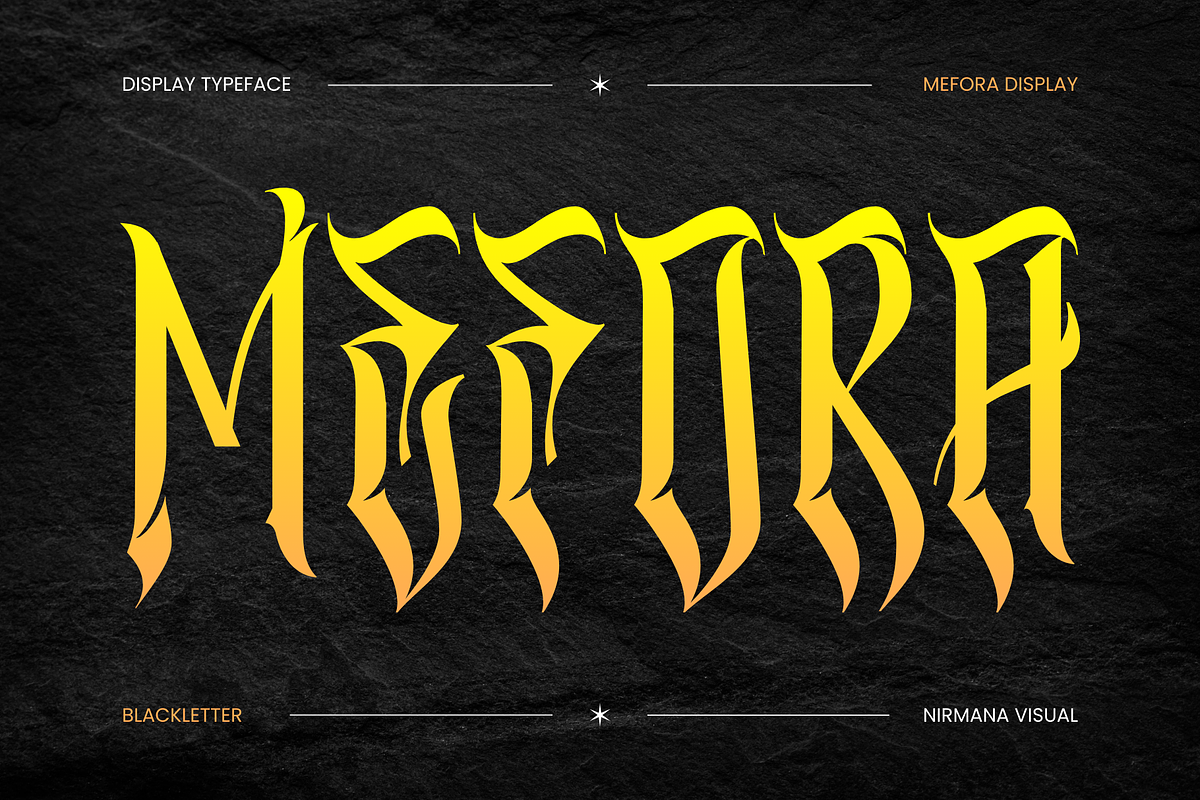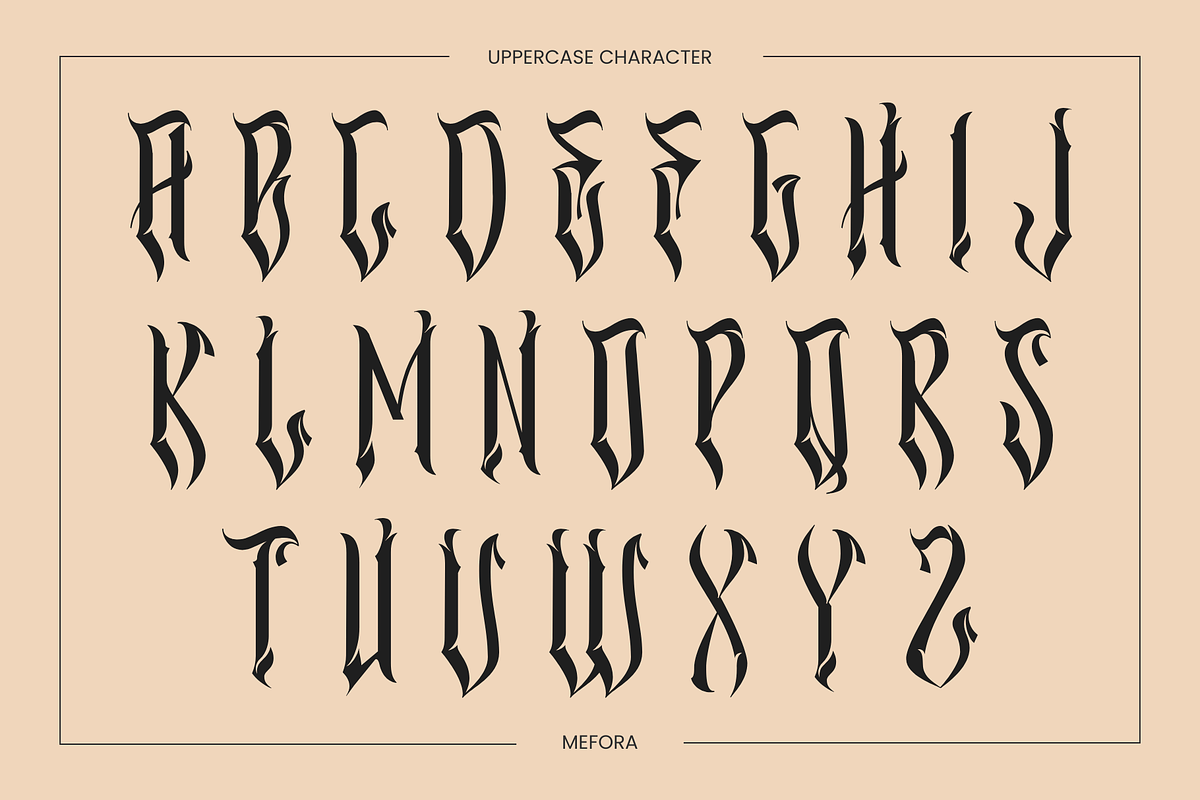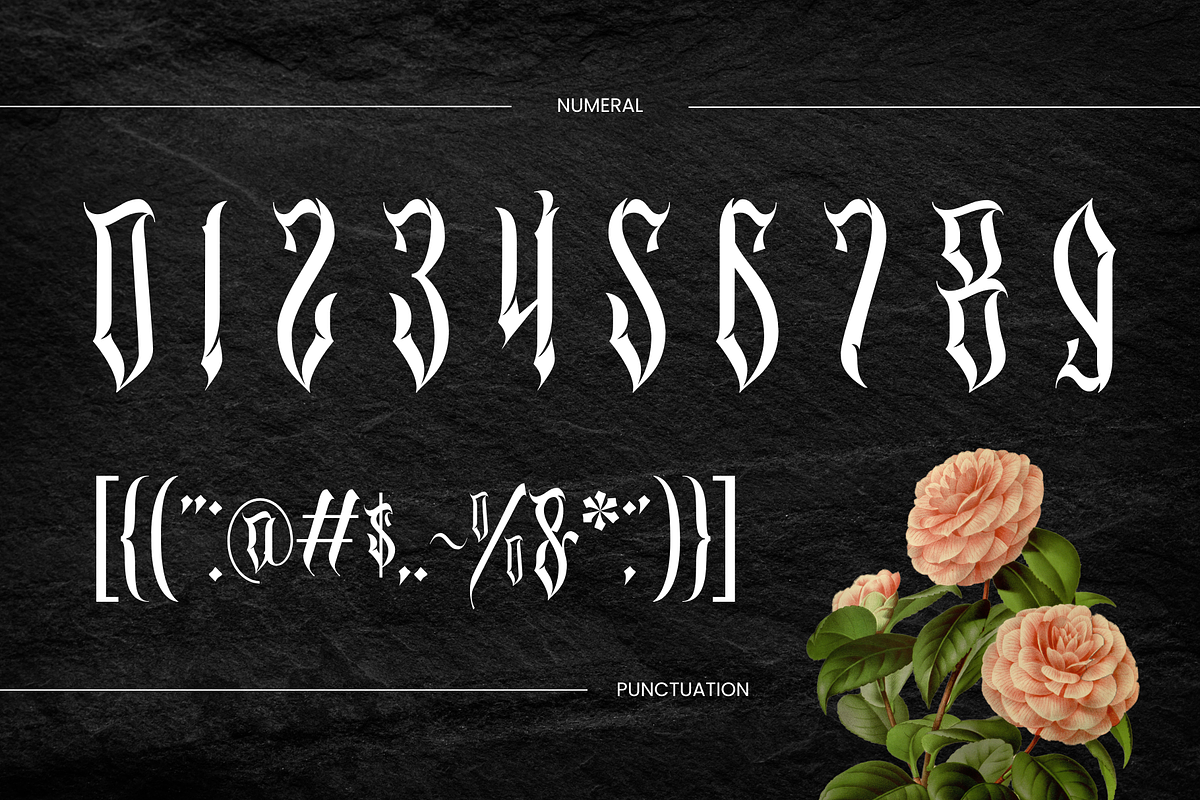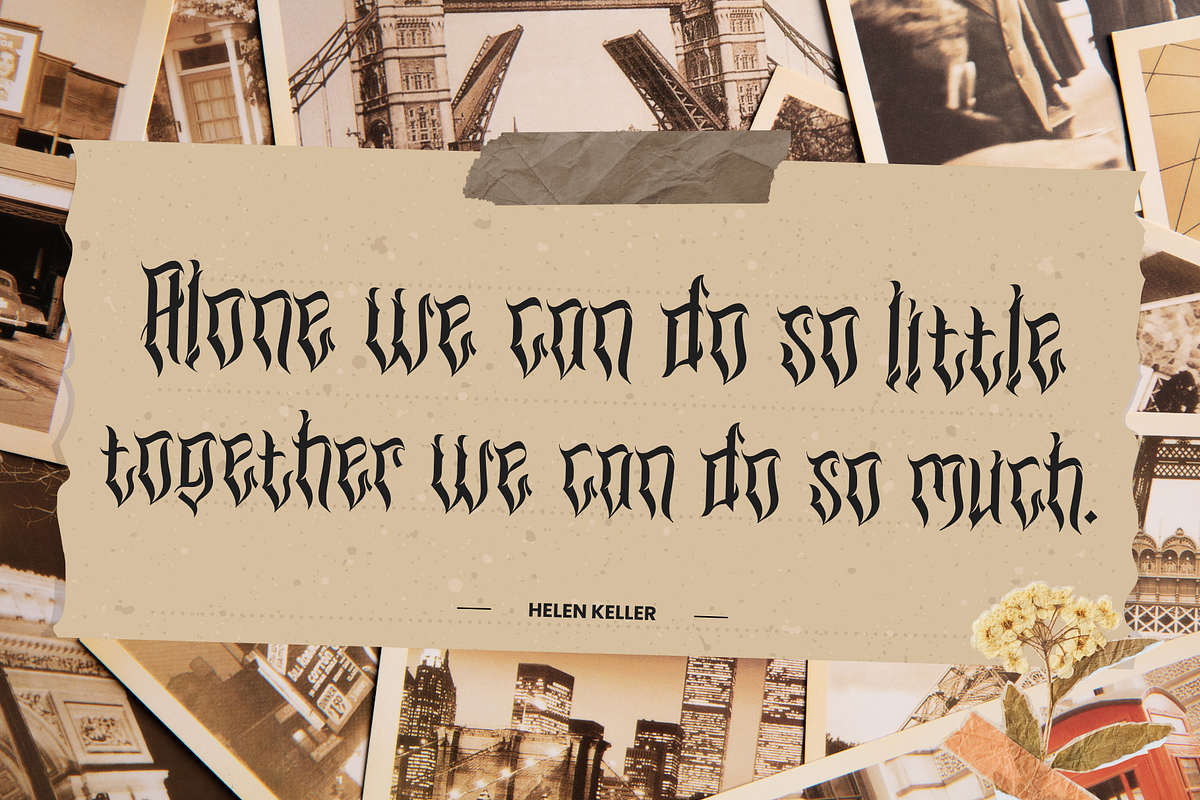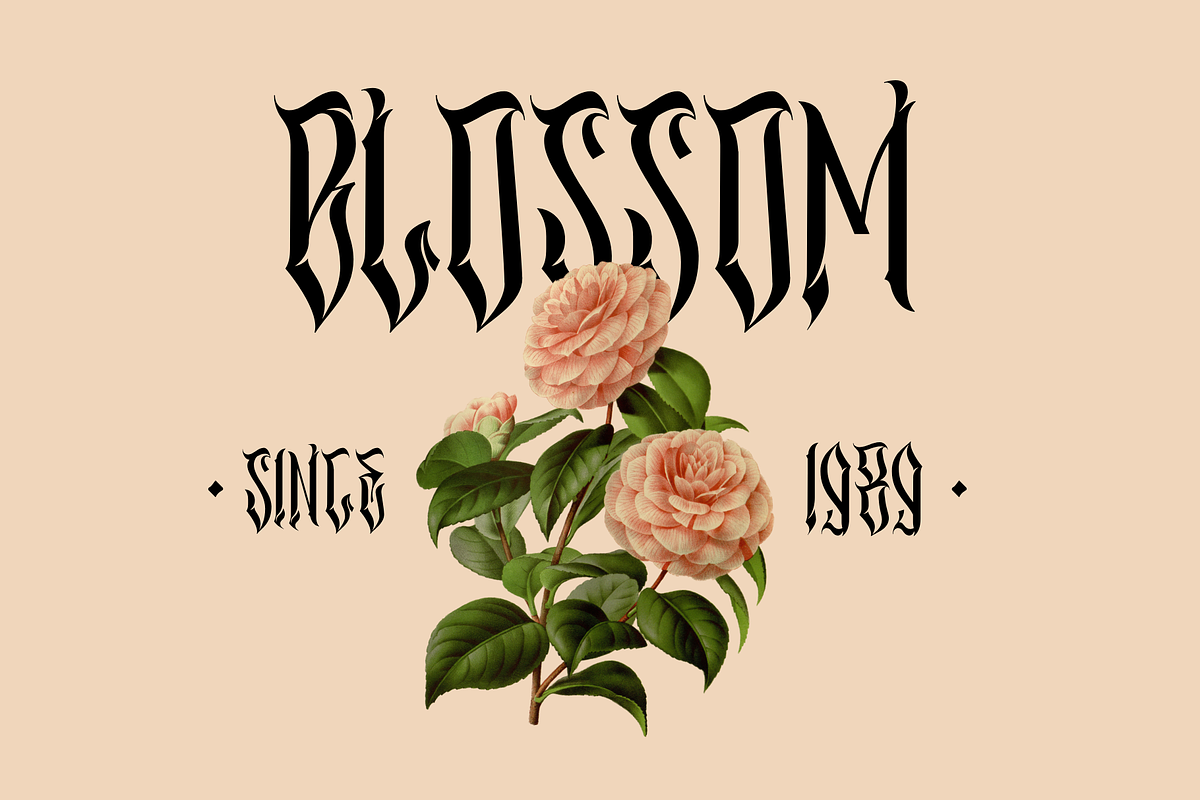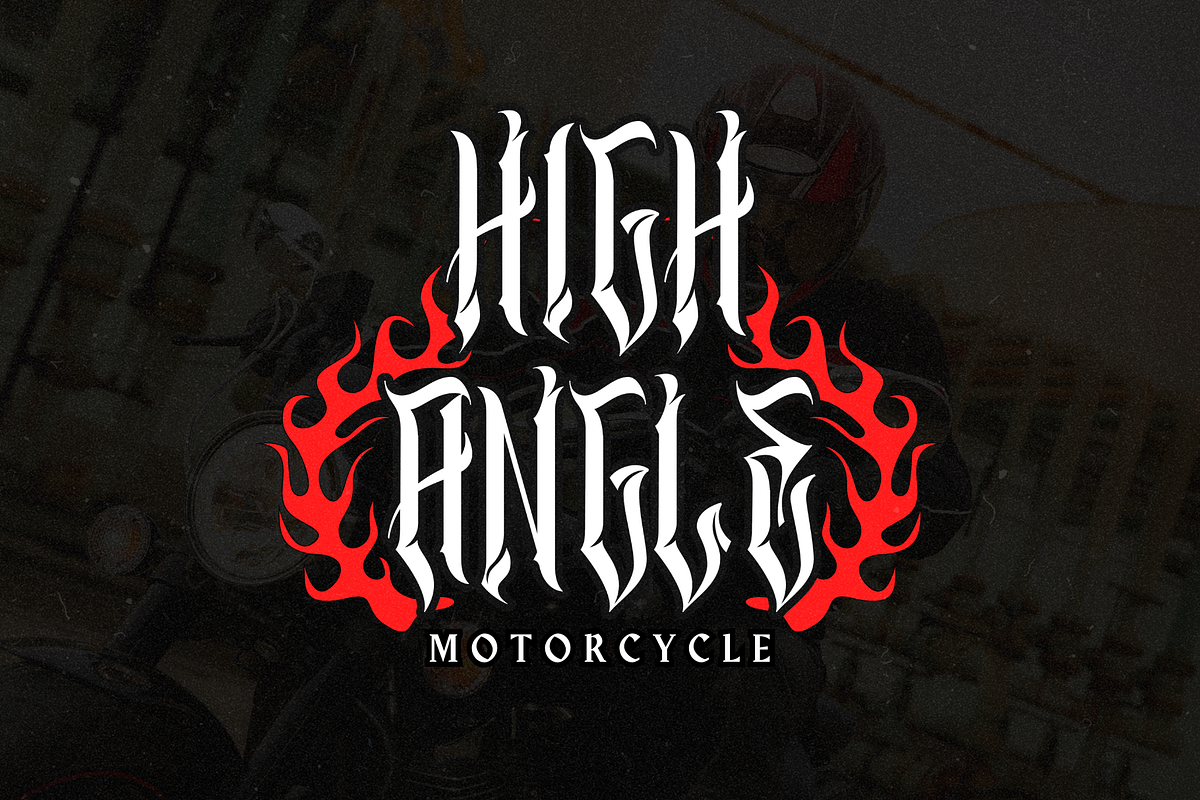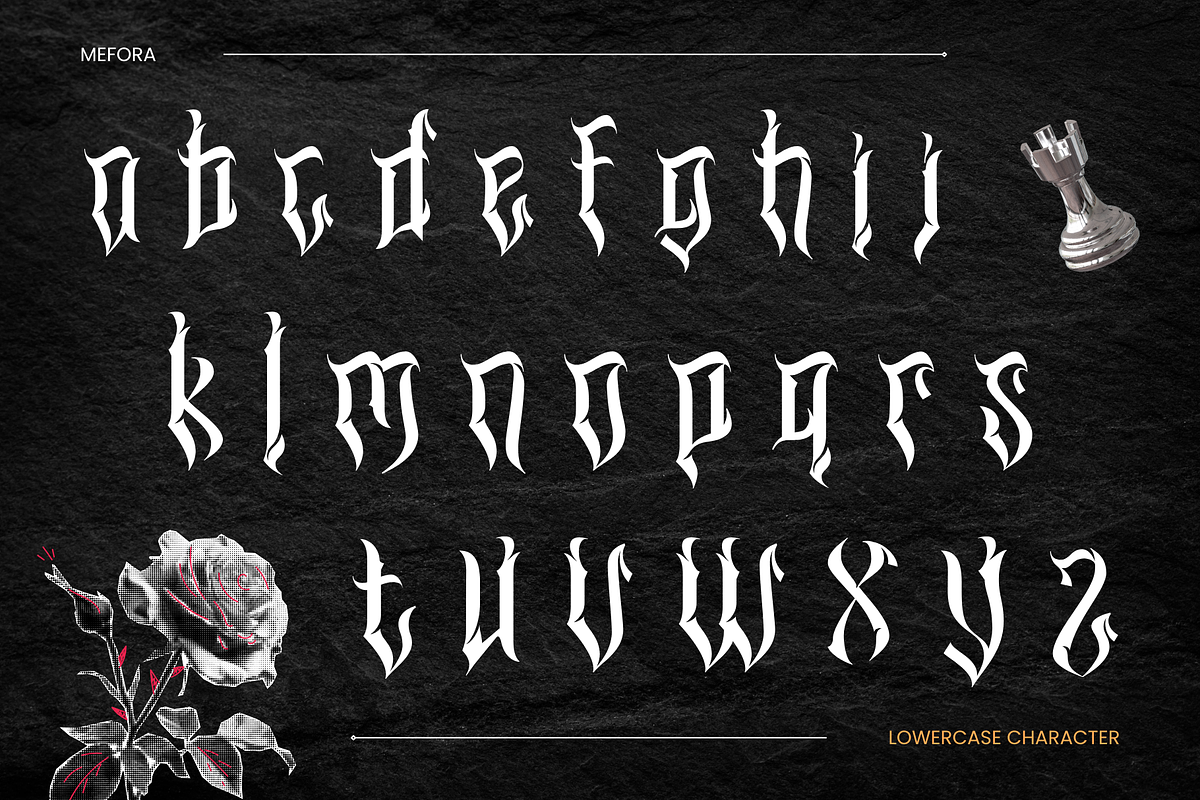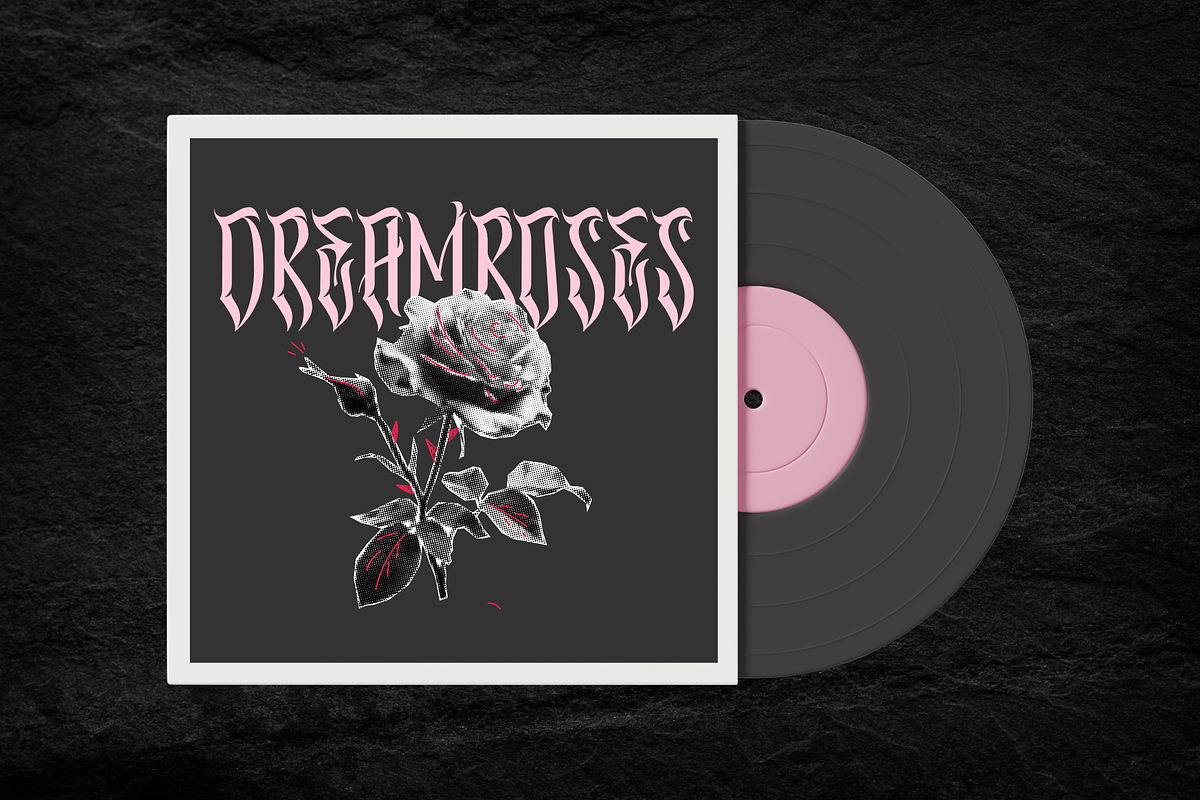
Mefora - Blackletter Logo Font
Mefora - Branding Logo Font
Mefora is a elegant blackletter font that exudes a sense of tradition and sophistication. Its intricate design features sharp, angular strokes and ornate details, making it perfect for projects that require a timeless, Gothic aesthetic. Ideal for logos, headlines, branding, and vintage-inspired designs, Mefora blends classic craftsmanship with modern versatility. Its unique character ensures your text stands out with a commanding presence and historical charm.